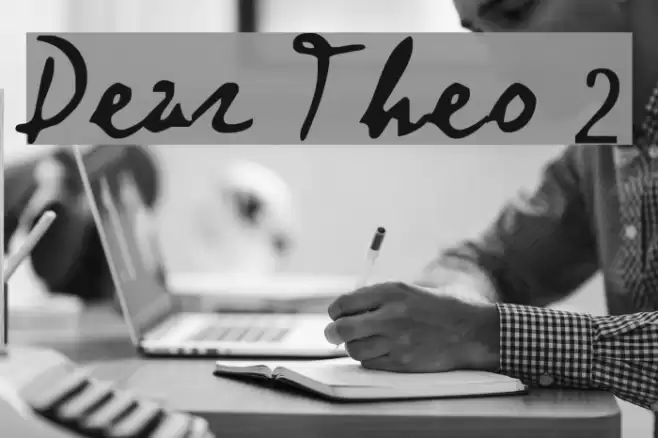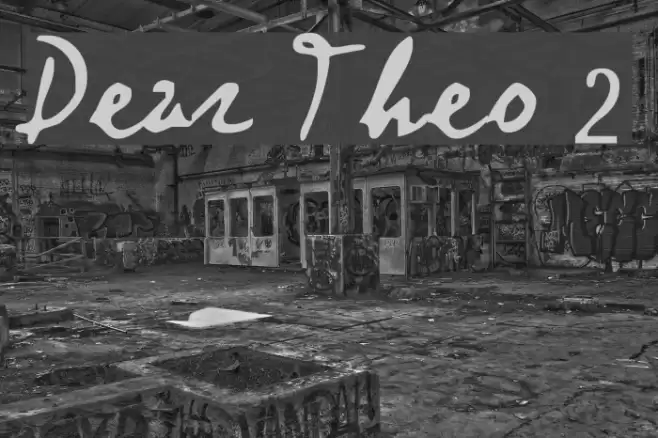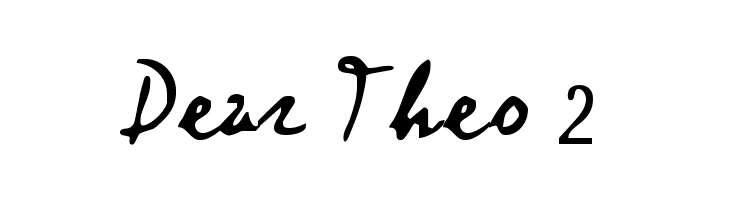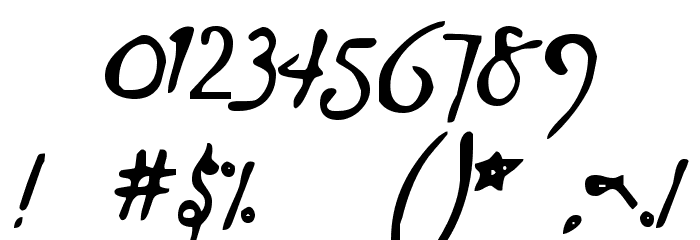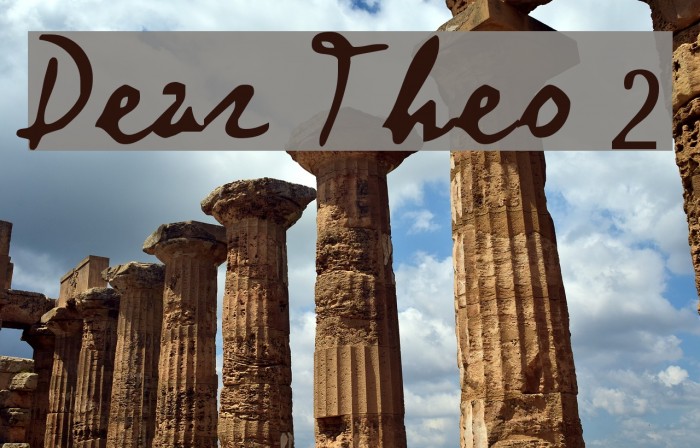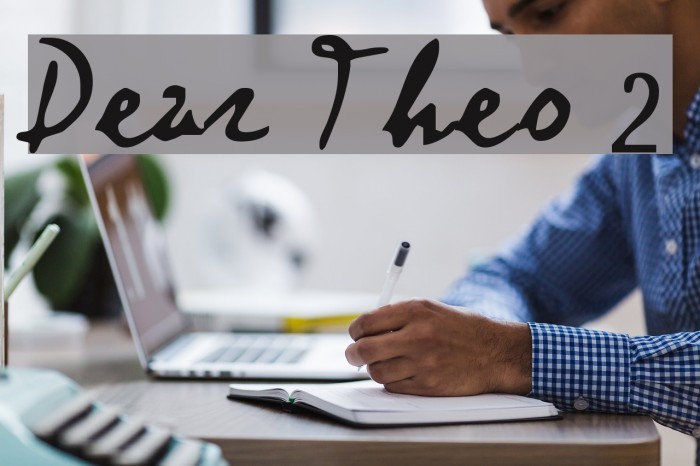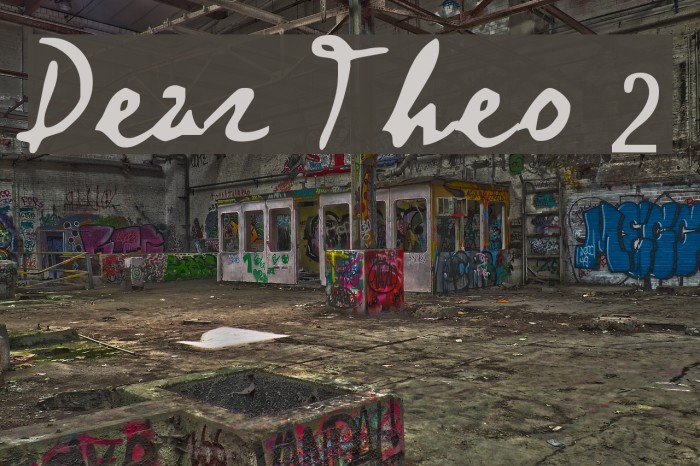
Dear Theo 2 Font
Dear Theo 2 Description
This font exhibits a dynamic and expressive handwritten style, characterized by its fluid and cursive strokes. The letters are connected in a way that mimics natural handwriting, giving it an organic and personal touch. The uppercase letters are bold and slightly slanted, while the lowercase letters maintain a consistent flow with varying stroke widths. Numbers and special characters follow the same cursive style, ensuring uniformity across all characters. The overall appearance is artistic and free-spirited, making it suitable for creative and informal applications.
Expressive handwritten font with fluid, cursive strokes from Handwritten fonts.
- Proposed Projects: Ideal for personal letters, creative invitations, artistic branding, and informal social media graphics.
- Use Case: Logos, Headlines, Invitations